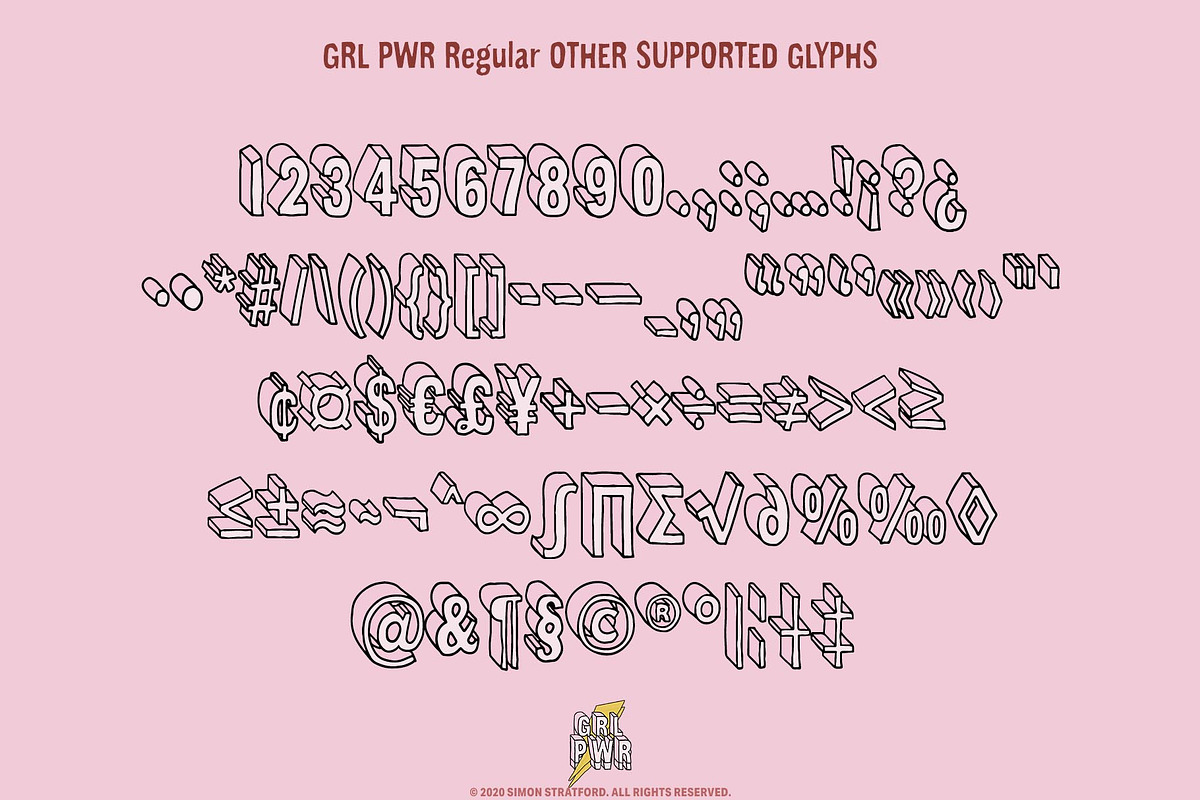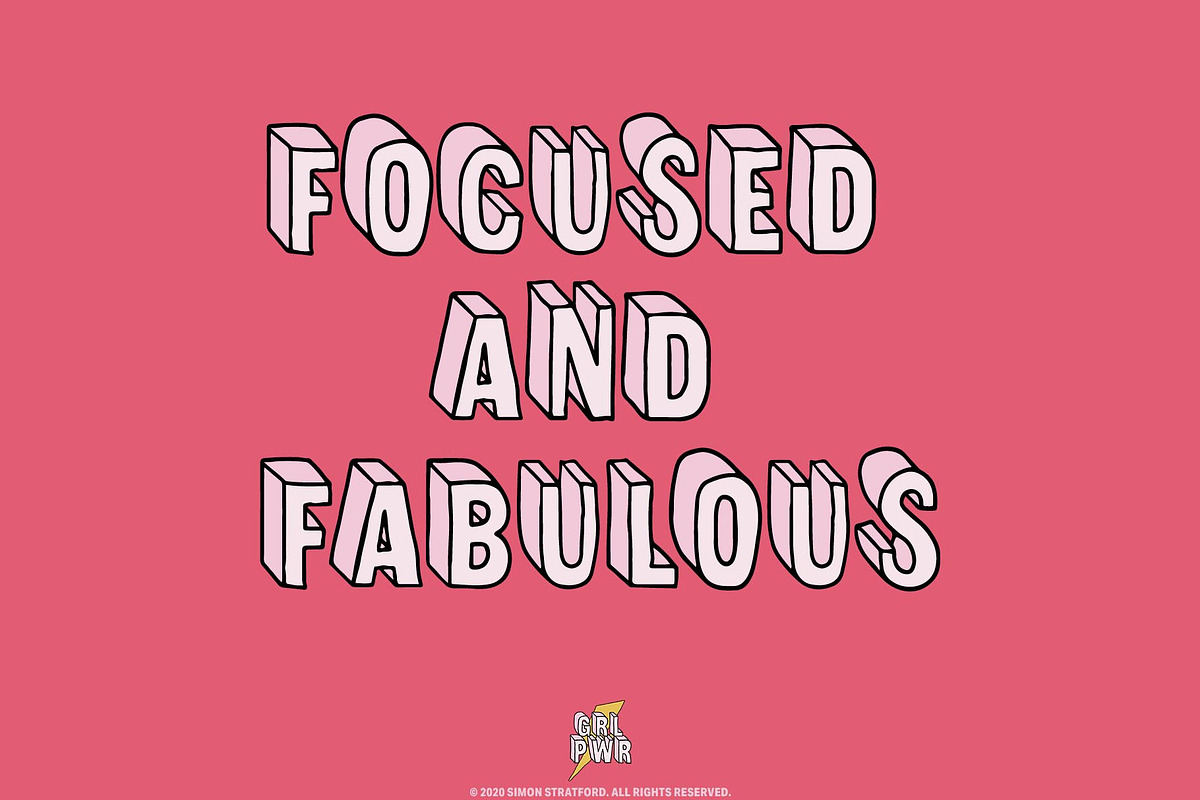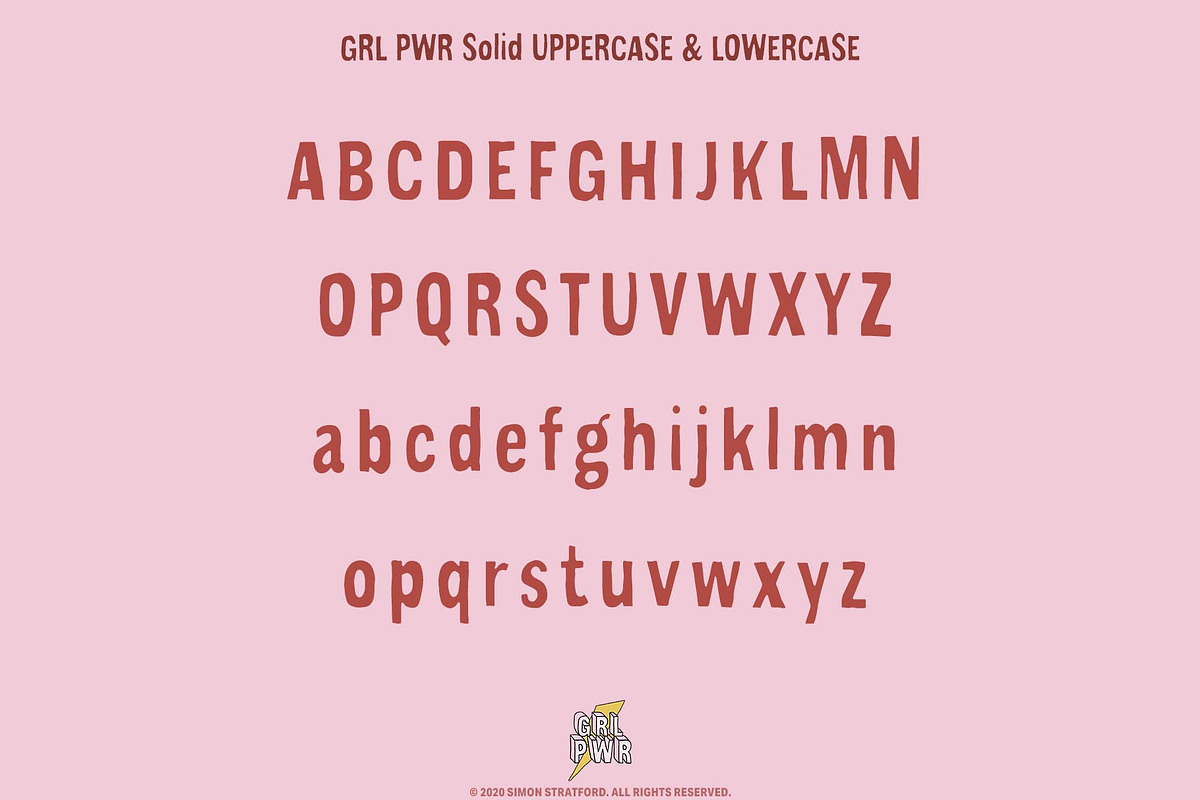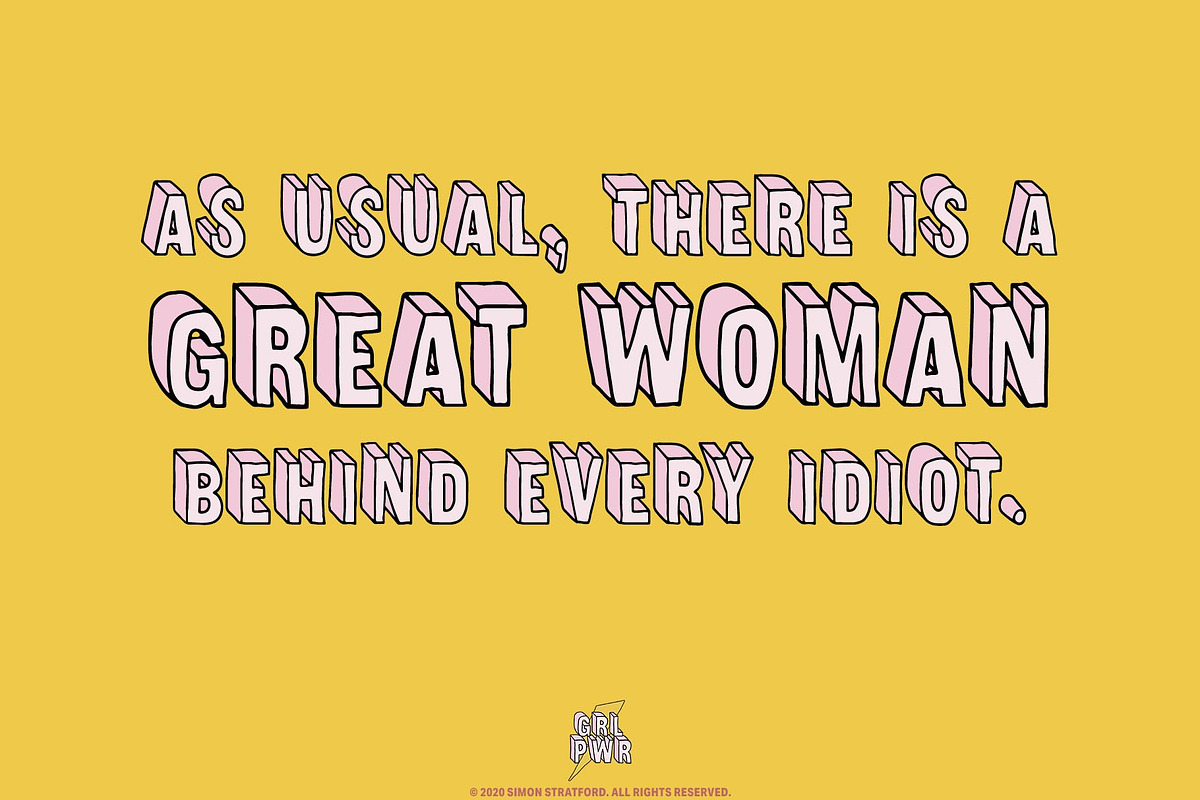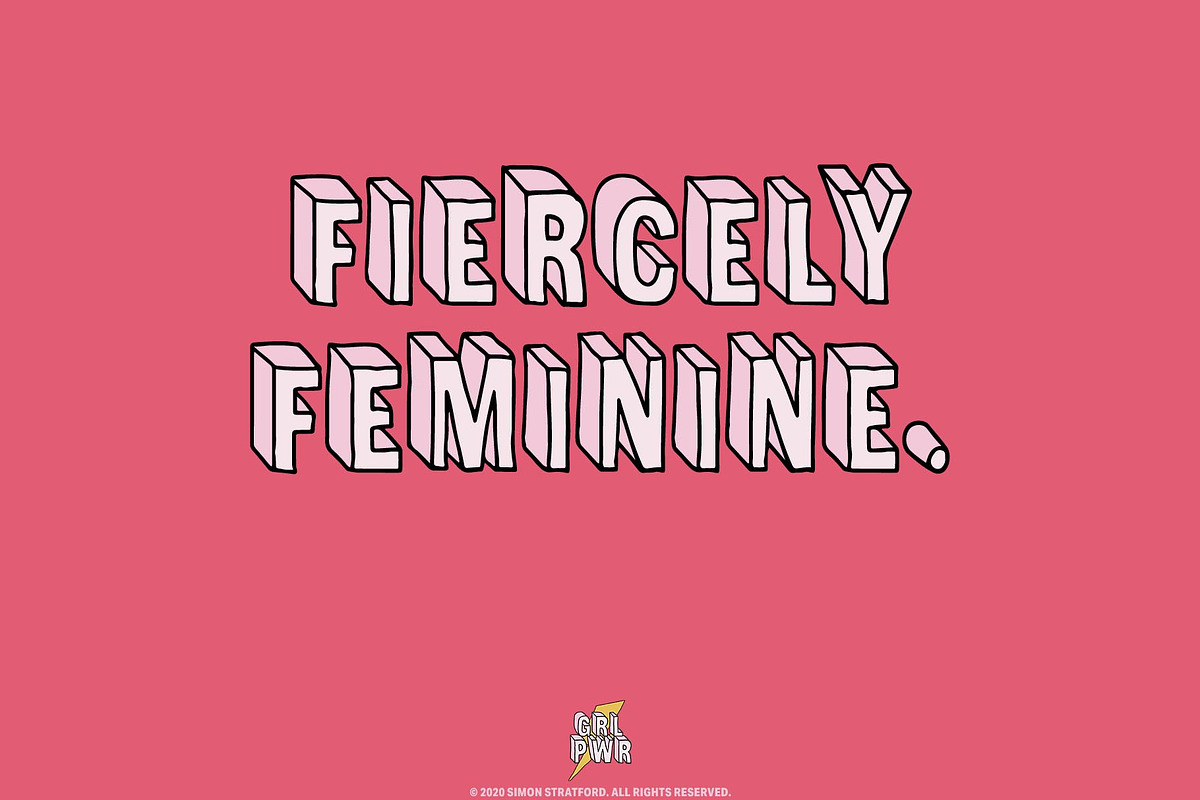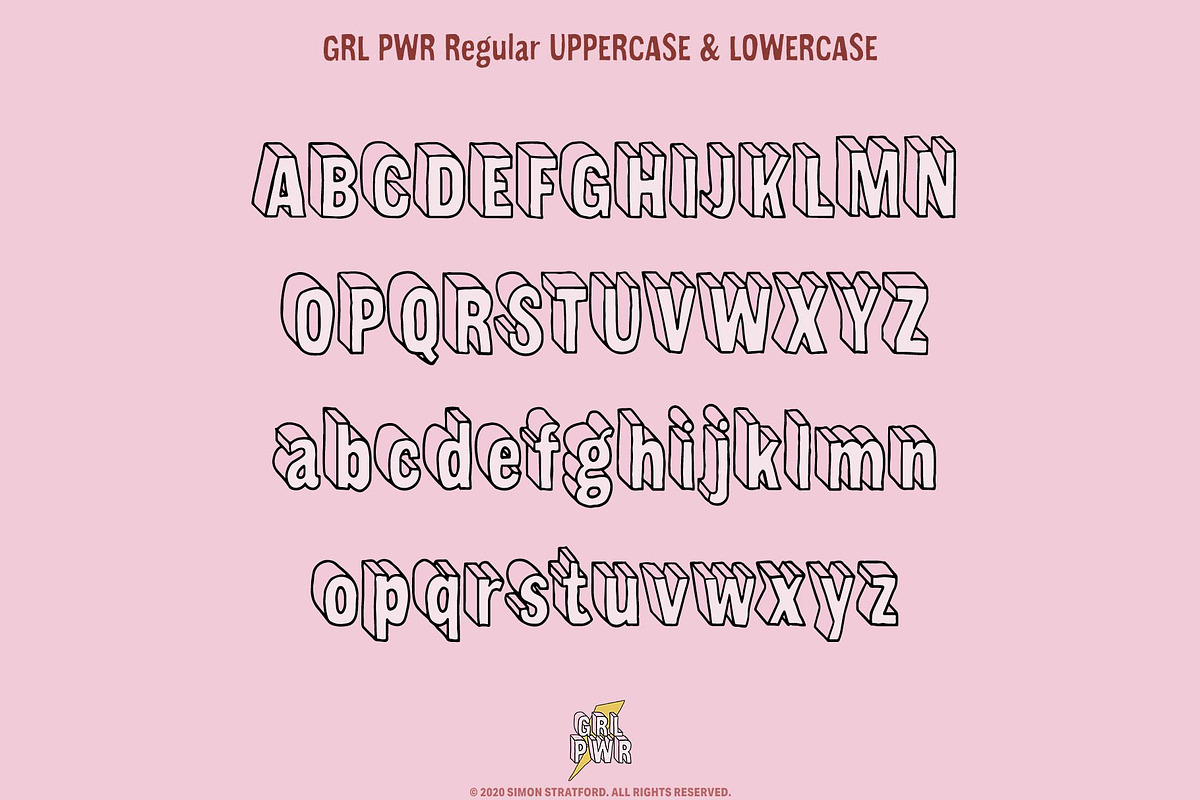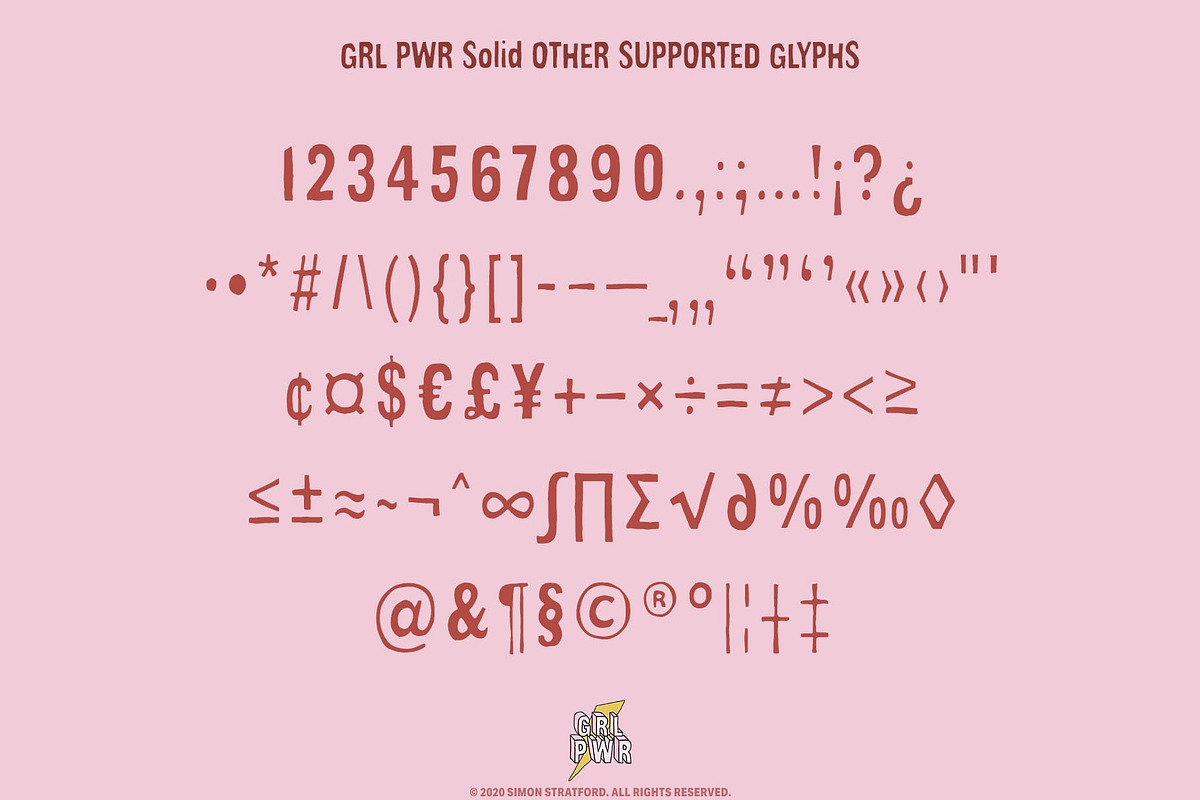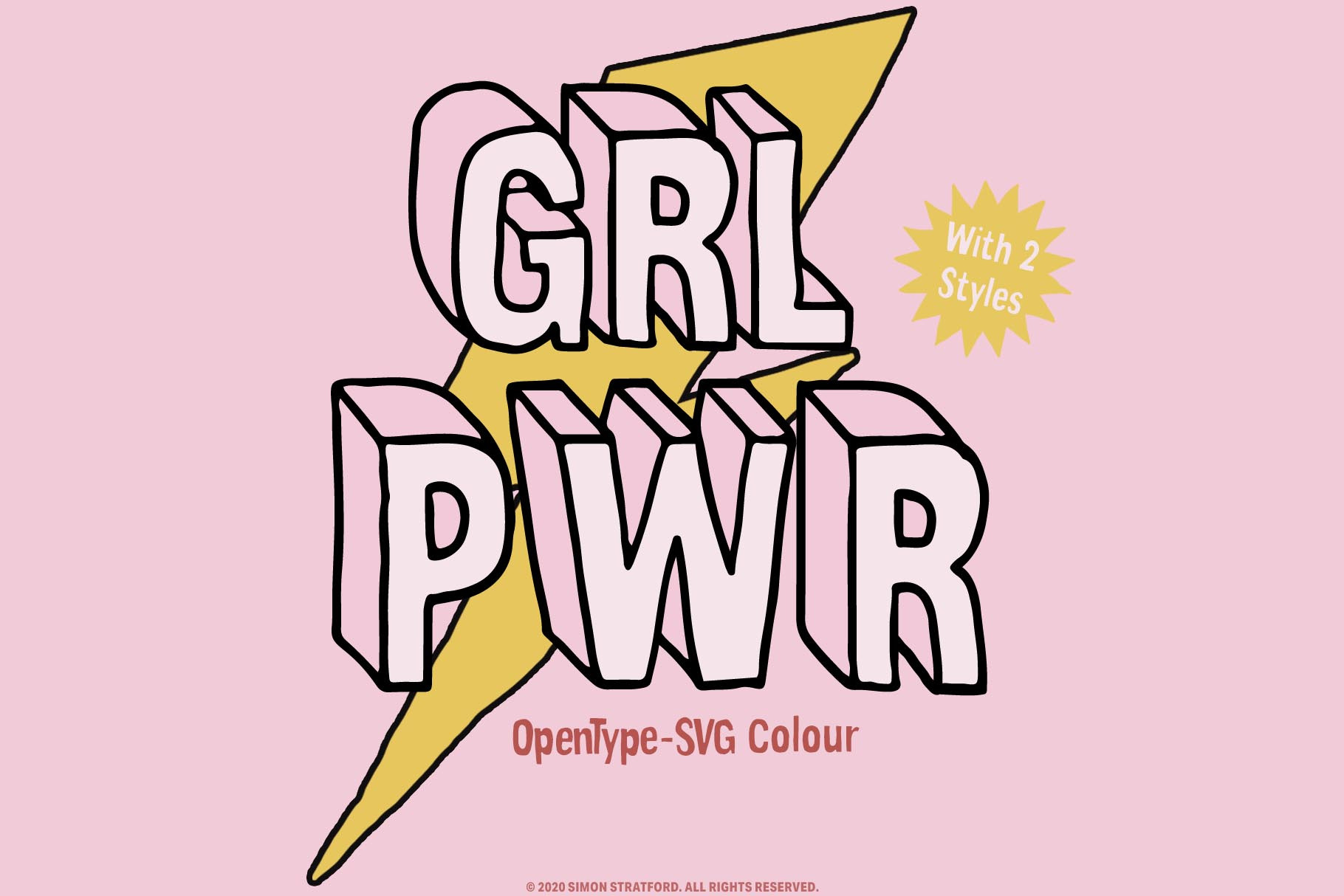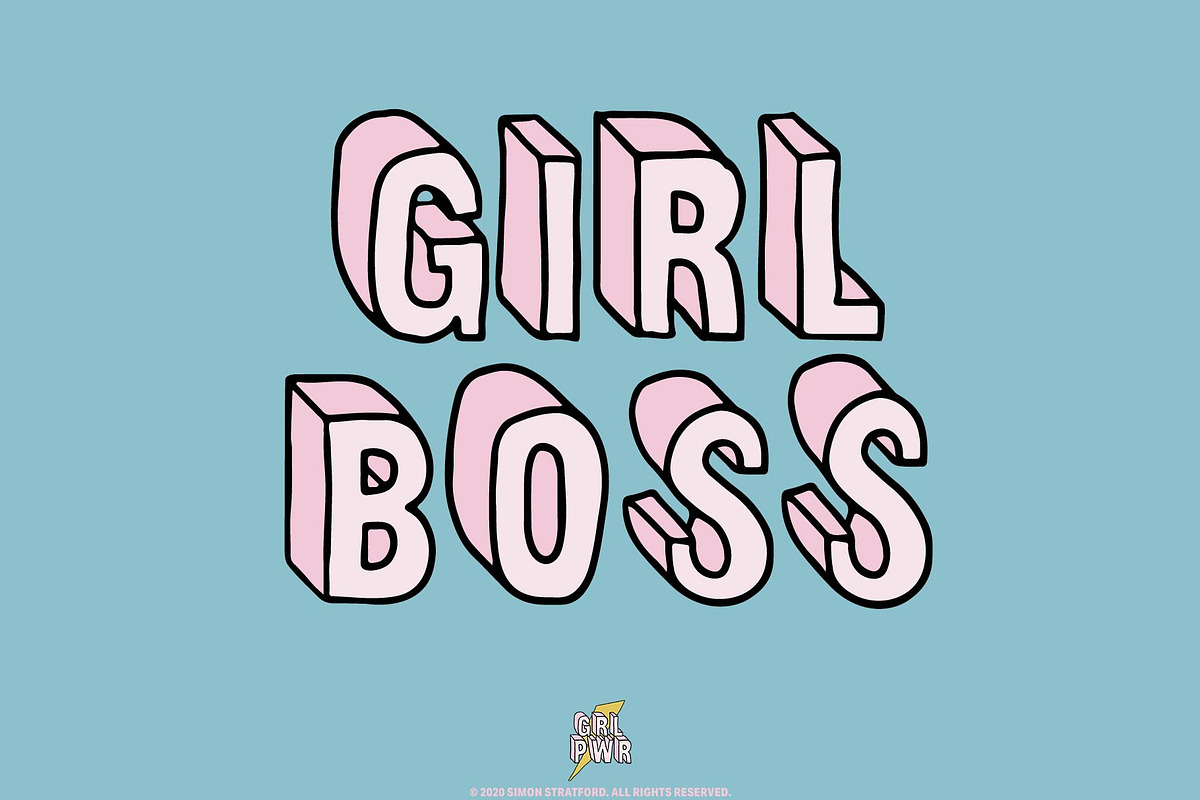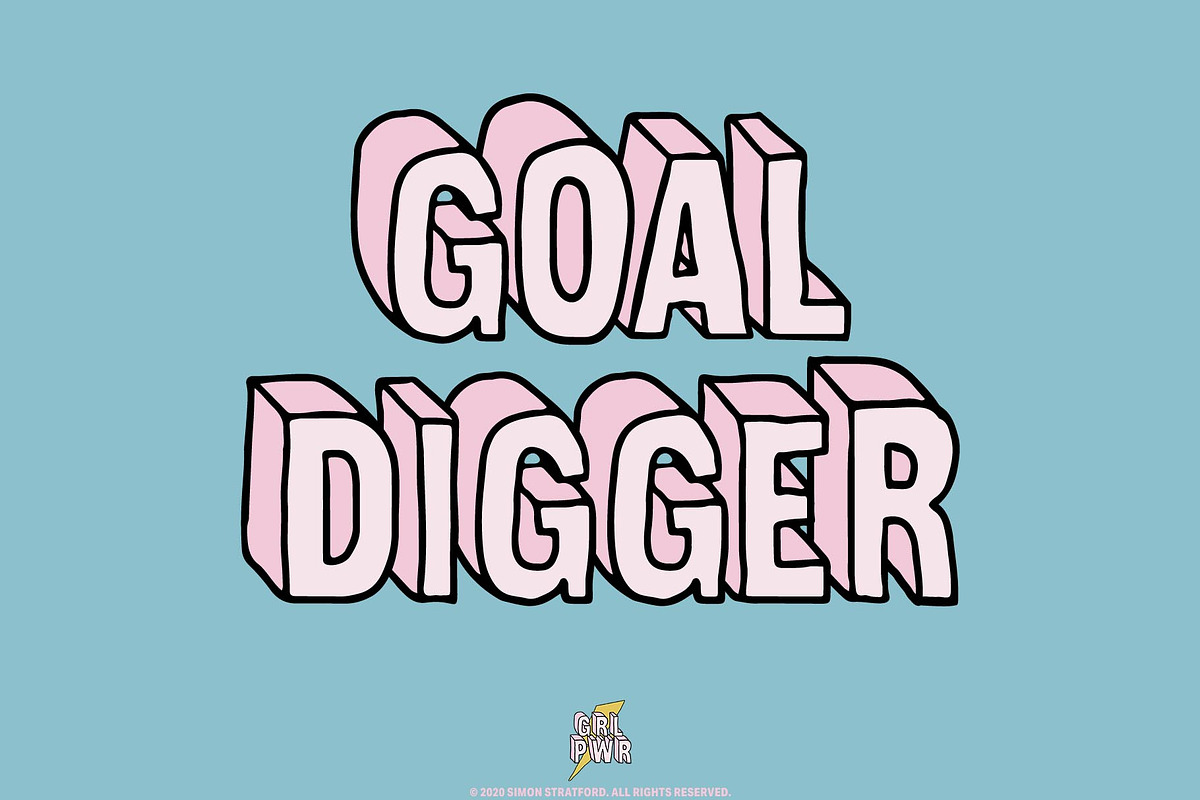
Display font GRL PWR
Display Font GRL PWR is a cool, bright, colourful little display font, hand-drawn to make the letters look like they are 3D or extruded. This font is also an OpenType-SVG colour vector font.
The new OpenType-SVG font format allows for colours, so the pink shades with the black outline is built into the font—the colours you see are the colours you get.
Its bold chunky outlines are somewhat playful, giving it a charming and easygoing character. The detail in each letter makes it look especially great at large point sizes.
GRL PWR is perfect for birthday cards, headlines, posters, and social posts and would also be amazeballs for packaging concepts.
GRL PWR also comes in two styles, 3d and solid. The solid version is not extruded, so the two styles play well together.
If this font were a celebrity, it would be more like Geri Halliwell than Jerry Springer—I wanna zig-a-zig-ah! (that's a spice girl reference—ask your parents, girl power!)
- Standard characters
- Numbers, punctuation and symbols